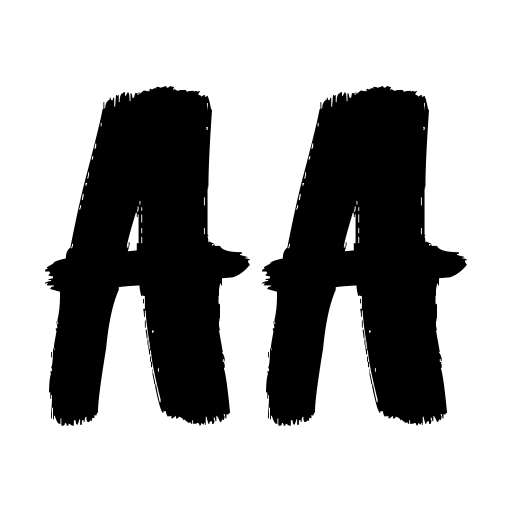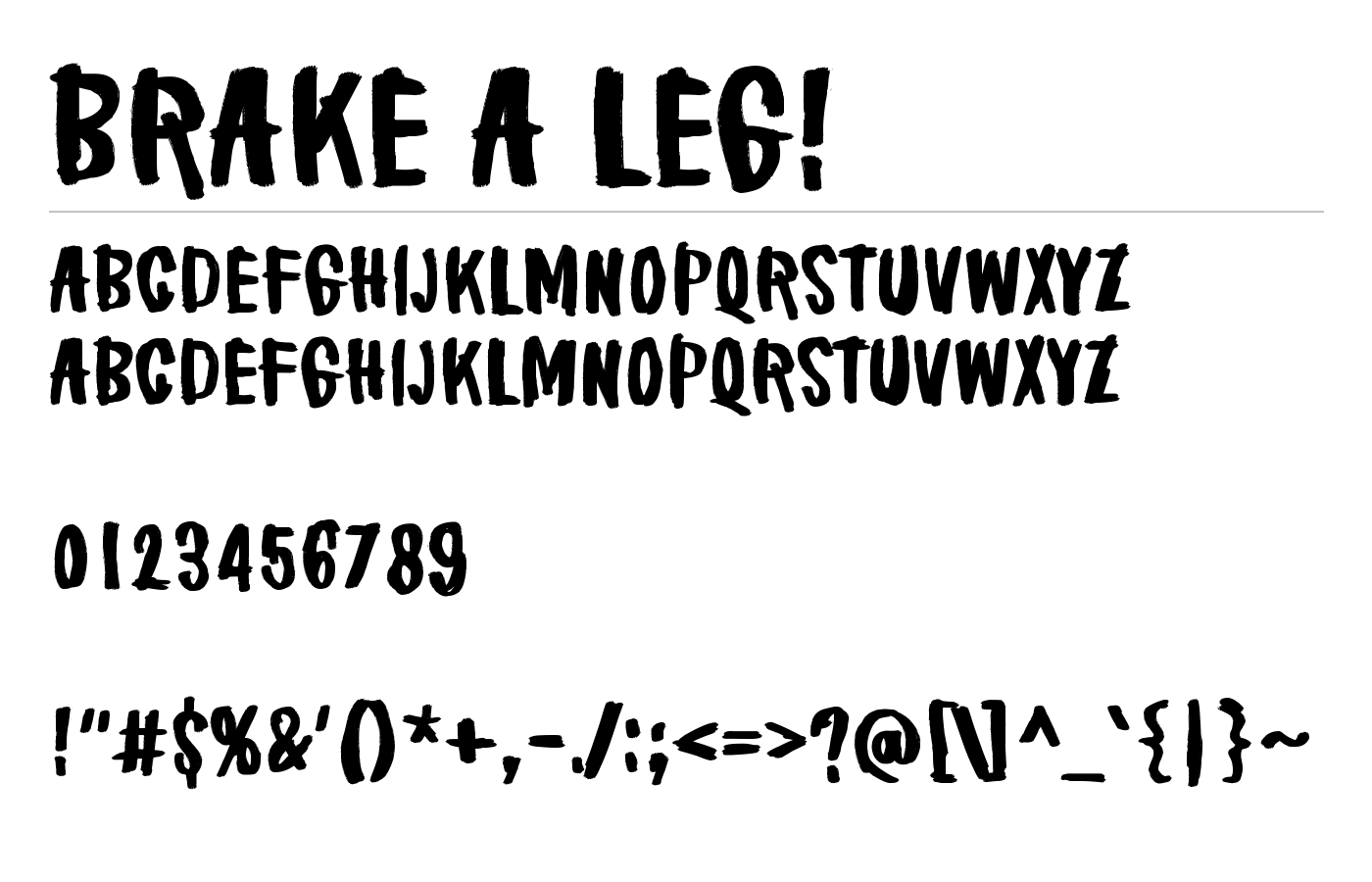
Brake a leg! is a bold, hand-drawn sans serif font with a playful and edgy character. Its irregular, brush-like strokes give it a raw, energetic feel, making it perfect for informal designs that want to convey creativity and spontaneity. This font works well in posters, logos, and casual branding where a strong, artistic personality is desired.
Brake a leg! Font
About Brake a leg! Font
| Font family | Brake a leg! Font |